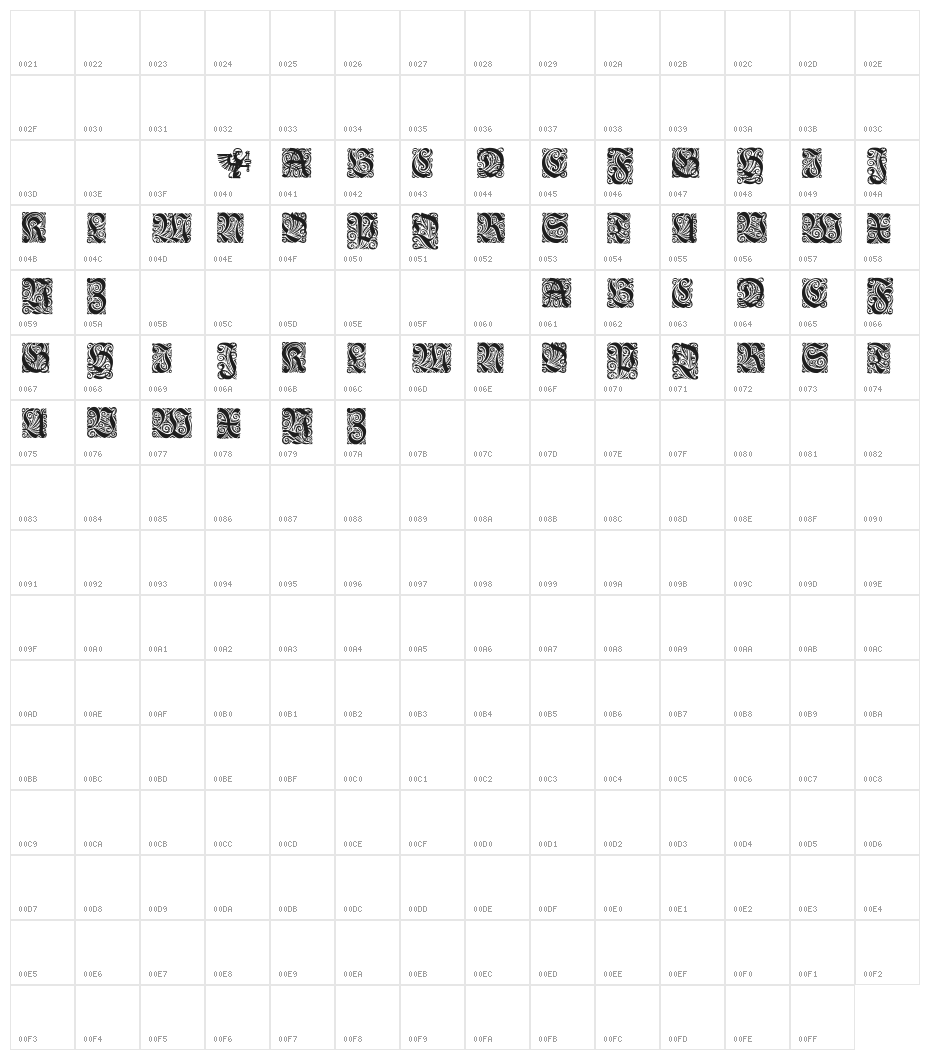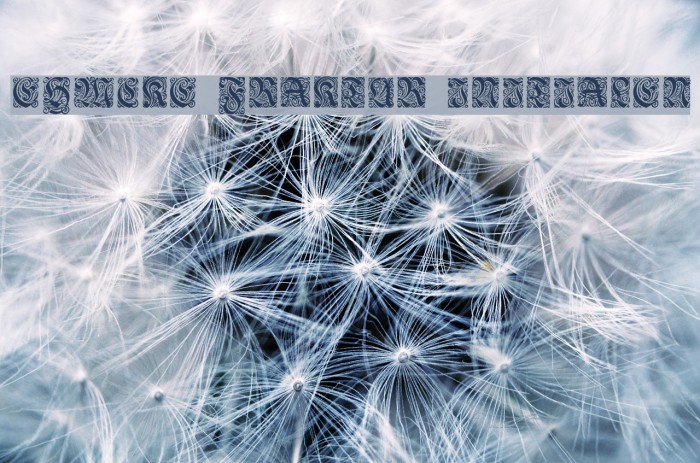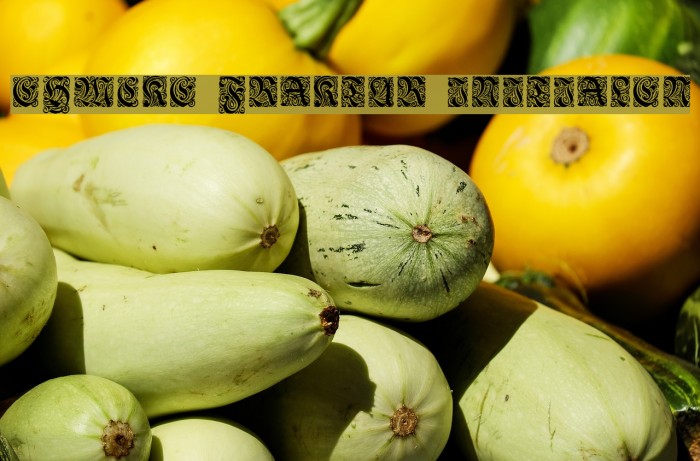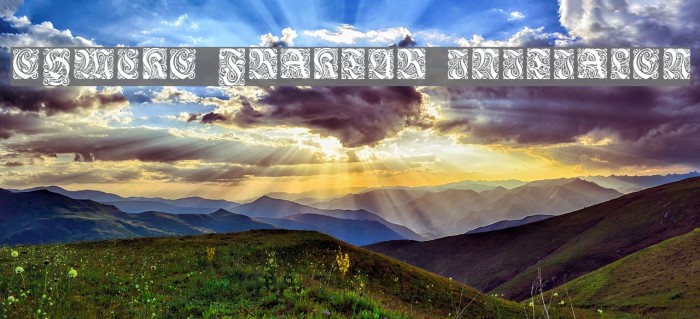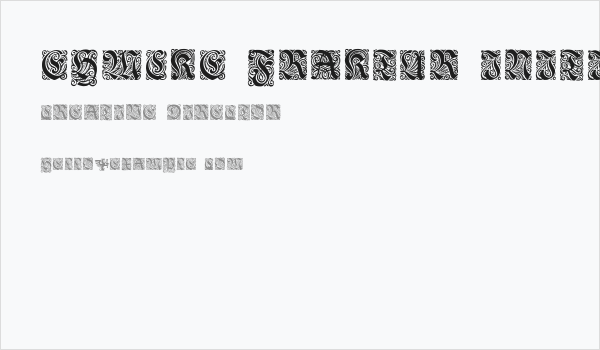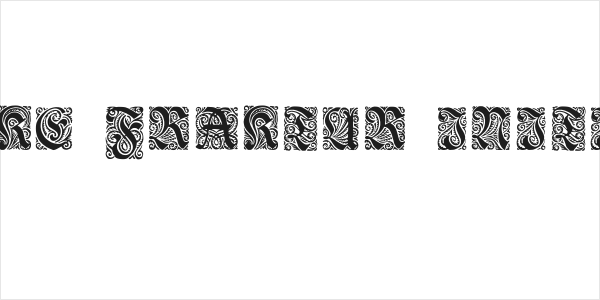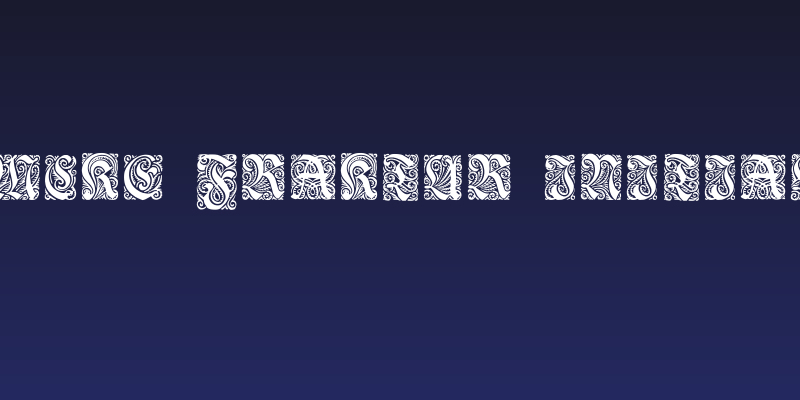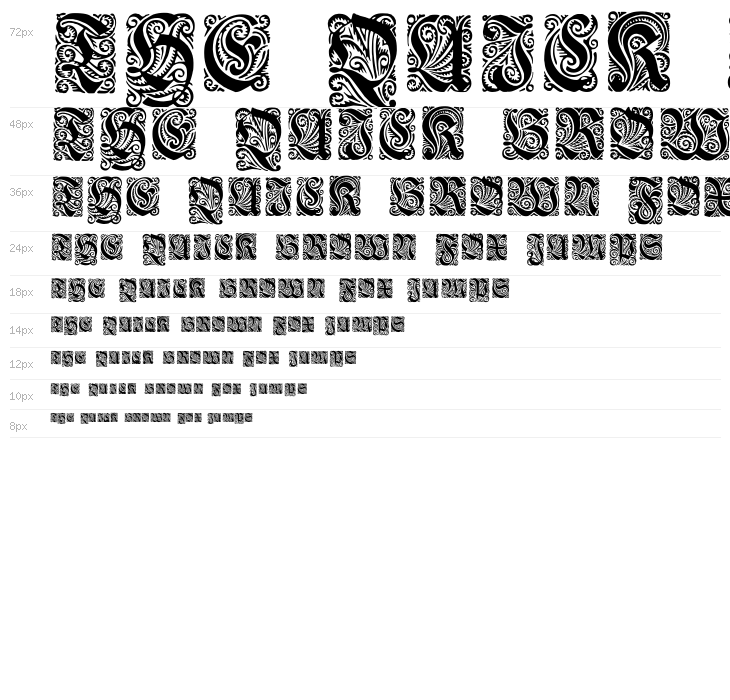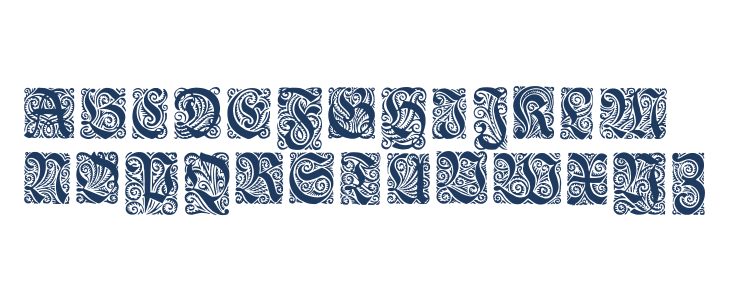
Ehmcke-Fraktur Initialen Font
Ehmcke-Fraktur Initialen Description
This font is a highly decorative and ornate typeface, characterized by its intricate and elaborate design. Each letter is encased in a square, filled with swirling and intertwining patterns that give it a rich, textured appearance. The style is reminiscent of traditional blackletter or fraktur fonts, with a modern twist that adds a unique flair. The bold and artistic nature of the font makes it stand out, perfect for projects that require a touch of elegance and sophistication. The detailed embellishments within each character create a sense of depth and complexity, making it suitable for artistic and creative uses.